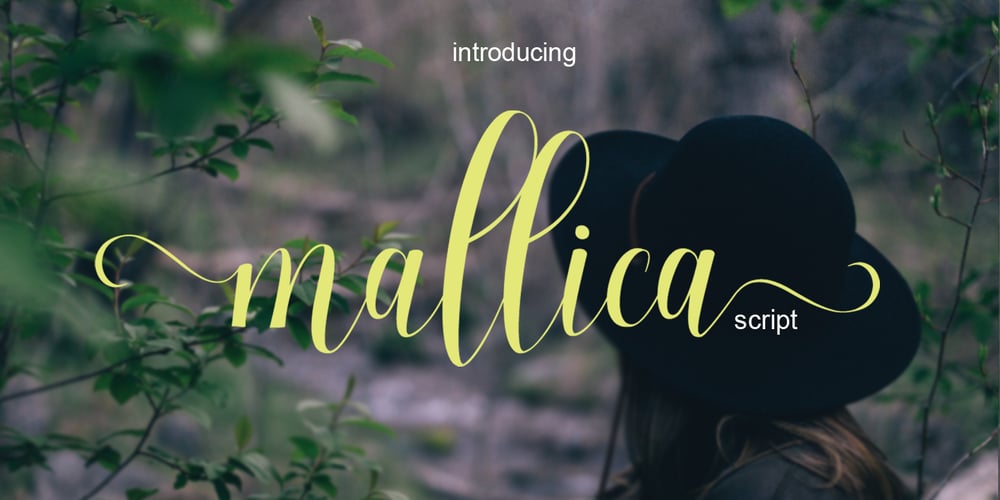
Mallica Font Family was designed by Teuku Zulfikar and published by Josstype. Mallica contains 1 styles and family package options. Mallica Script, a Hand Lettered Calligraphy Font with beautiful waves and natural flow, has a unique letter style and has a softer and smoother character subtly connecting all the characters. Mallica Script has simple elegant swashes in separate letters. You can use graphic design software to access the alternate letter. Mallica Script is perfect for weddings, invitations, greeting cards, quotations, posters, branding, business cards, stationary, title design, header blogs, excerpts of art, envelopes, modern or design books, titles, pop vintage design, or other purposes to make your project/art design look beautiful and trendy. Mallica Script comes with 273 glyphs. This includes uppercase, lowercase, numbers, fractions, punctuation, multi-language support and OpenType features such as Standard ligatures, stylistic set, alternative style. If you have any questions, please feel free to contact me via email: joelpopon@gmail.com